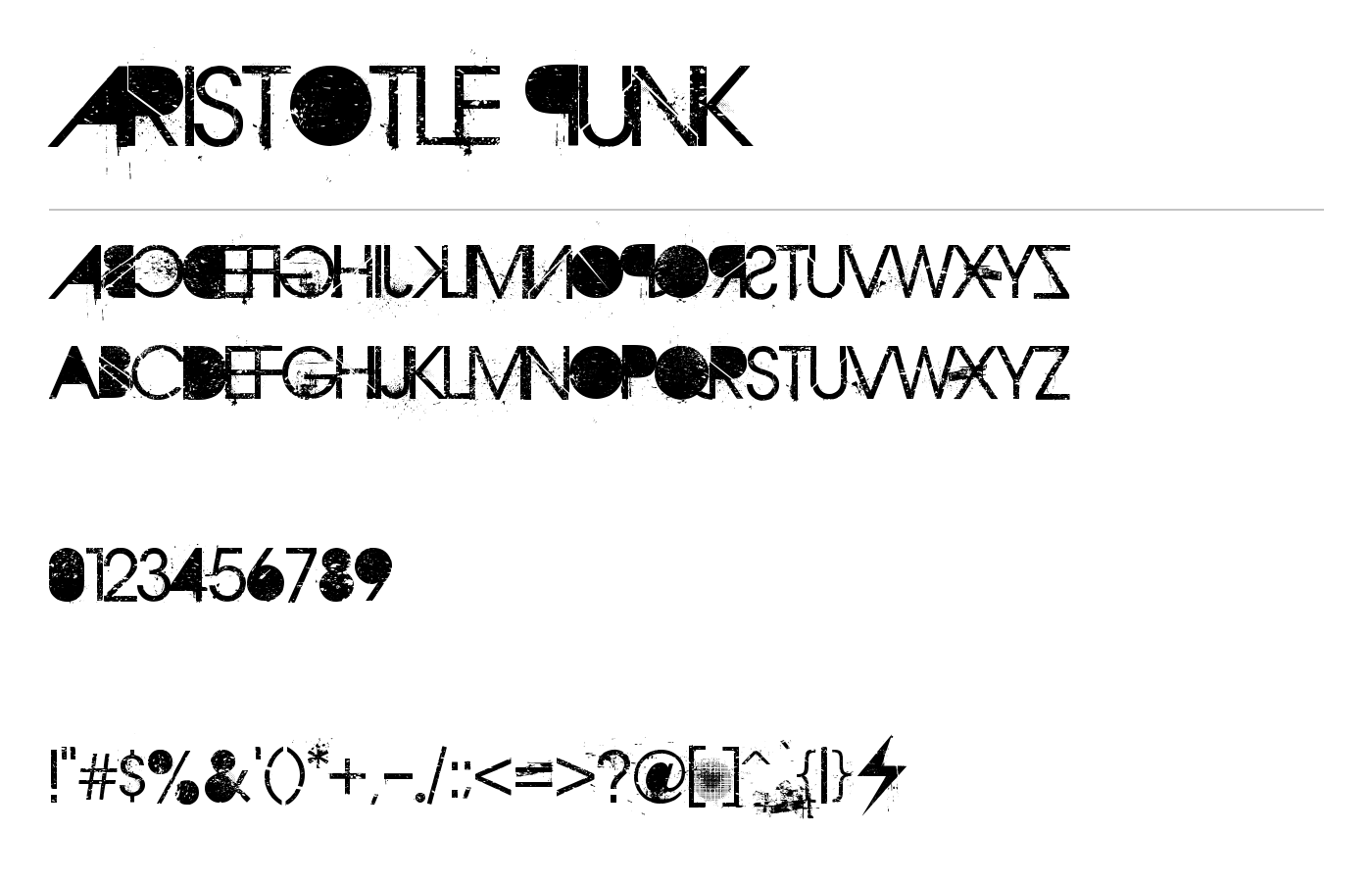
Aristotle Punk is a bold, distressed sans serif font that combines sharp geometric shapes with a grungy, worn texture, giving it a rebellious and edgy vibe. Its uppercase letterforms are unique and experimental, making it perfect for attention-grabbing headlines, posters, and urban-inspired branding where a strong, unconventional look is desired. This font’s rough, imperfect style communicates energy and attitude, ideal for creative projects seeking a punk or alternative aesthetic.
Aristotle Punk Font
About Aristotle Punk Font